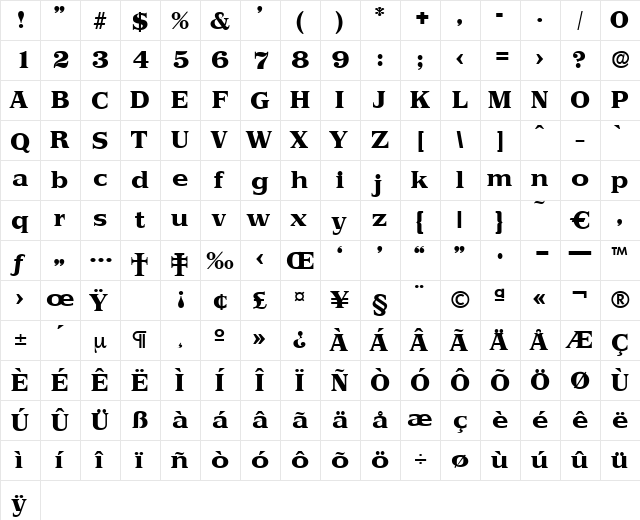
Priamos-Bold Regular
Design Context for Priamos-Bold Typeface
Priamos-Bold takes a measured approach to typography — its balanced proportions and neutral character make it a reliable workhorse for both digital and print work. The heavy weight commands attention and anchors typographic hierarchies.